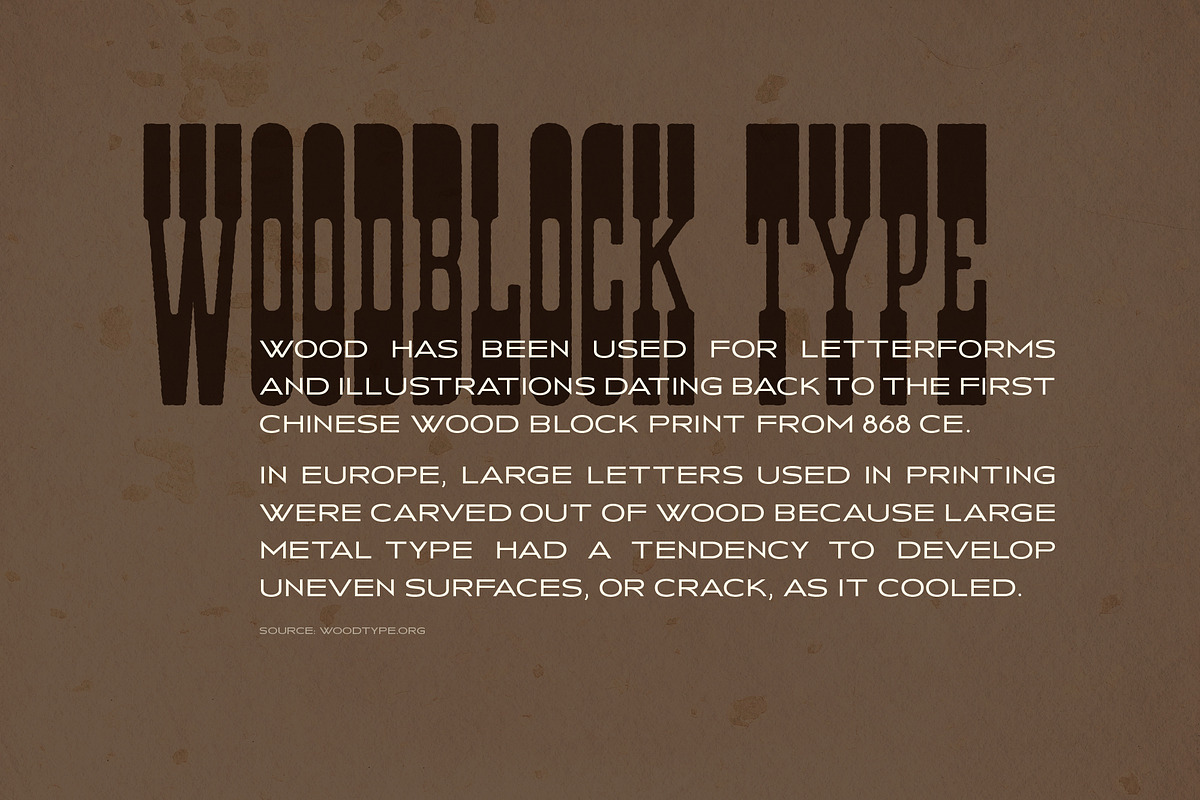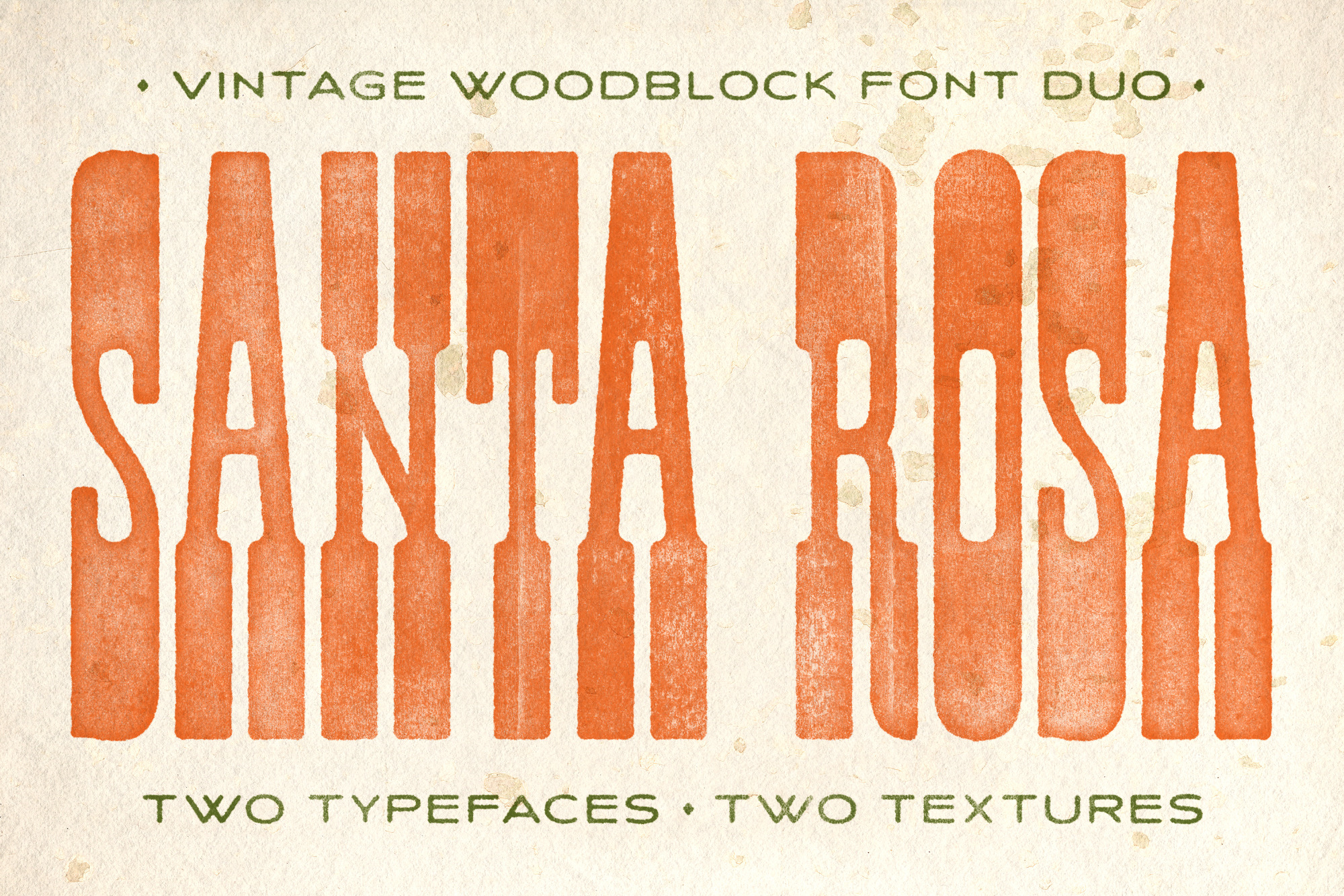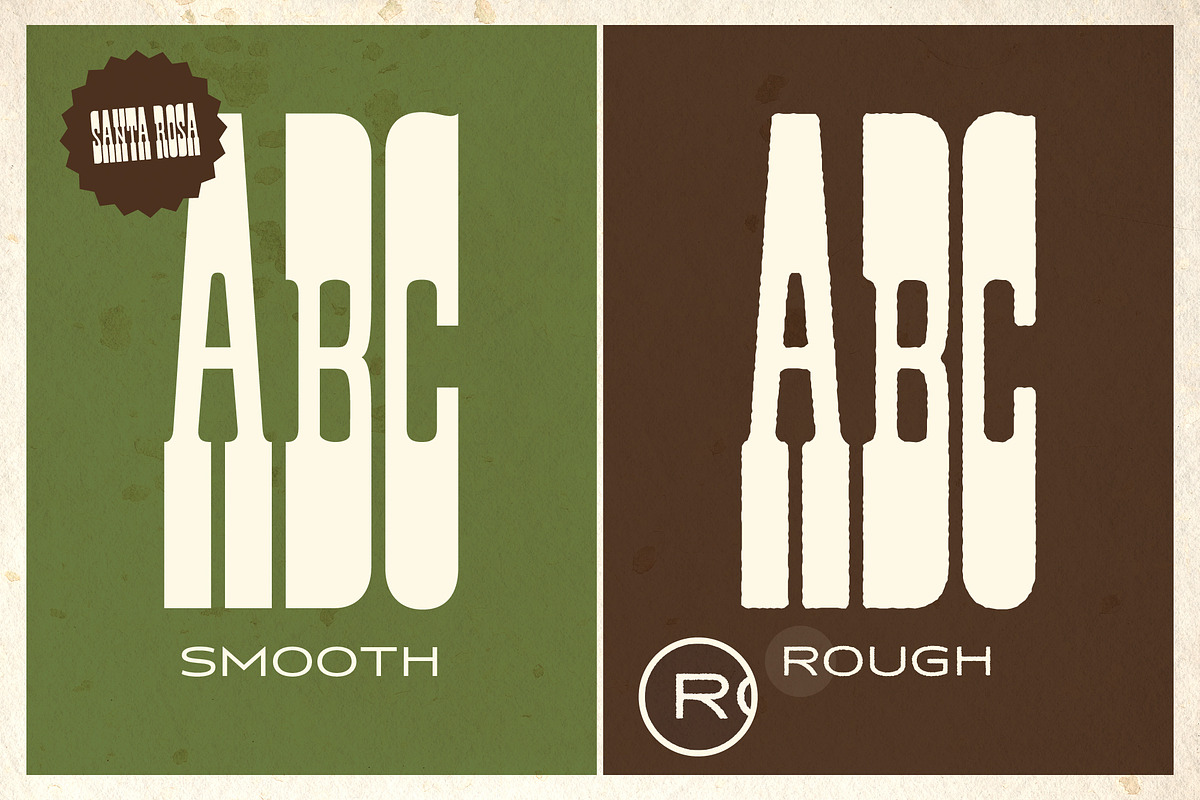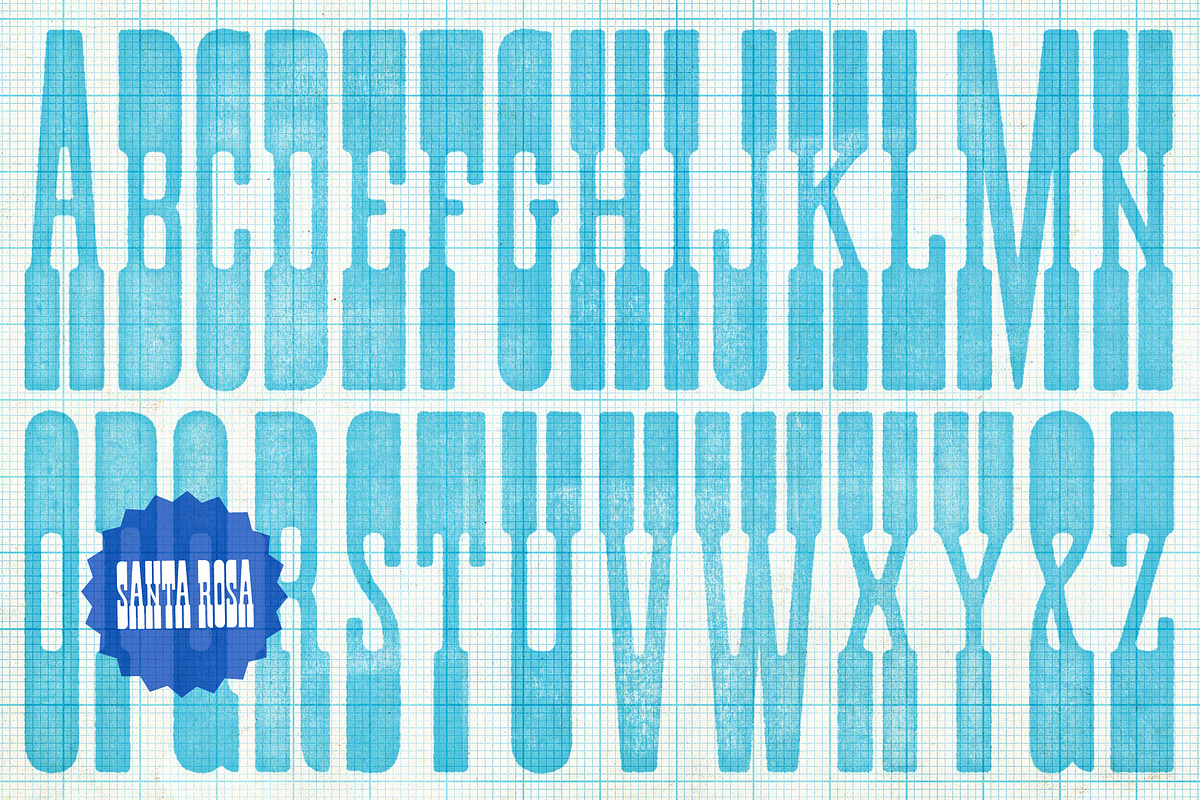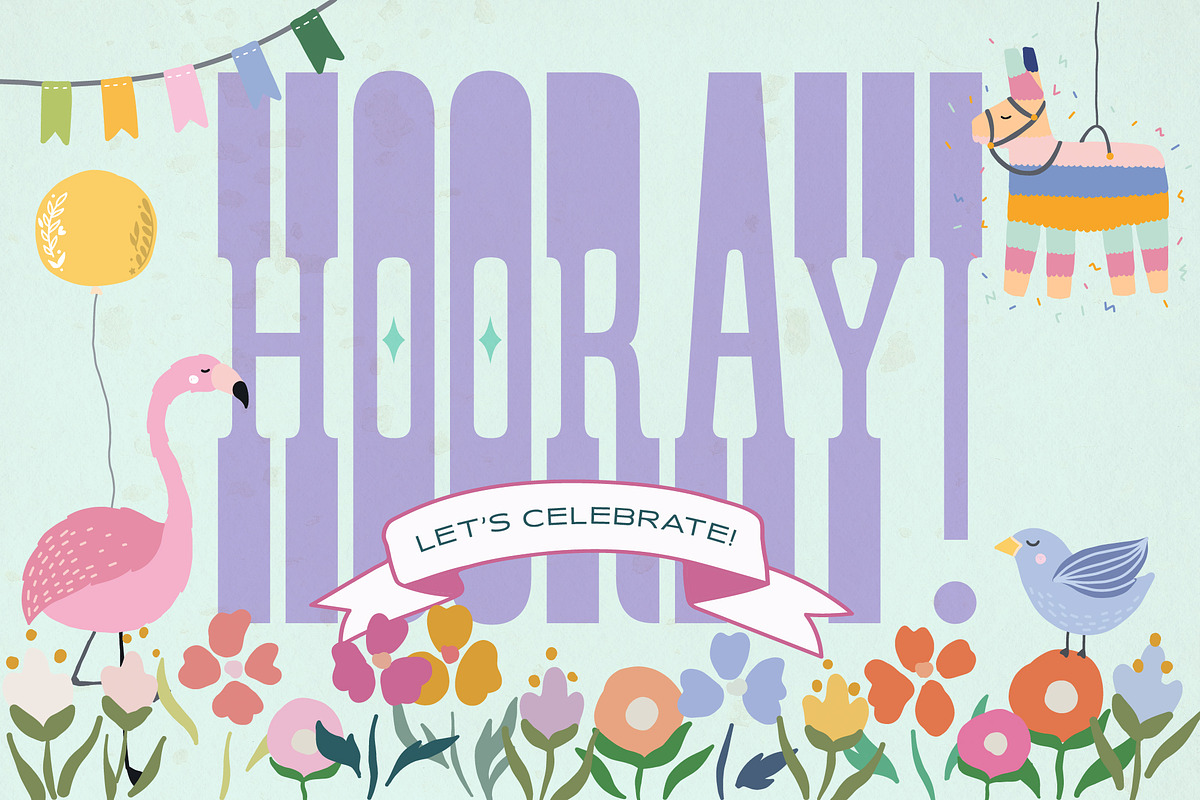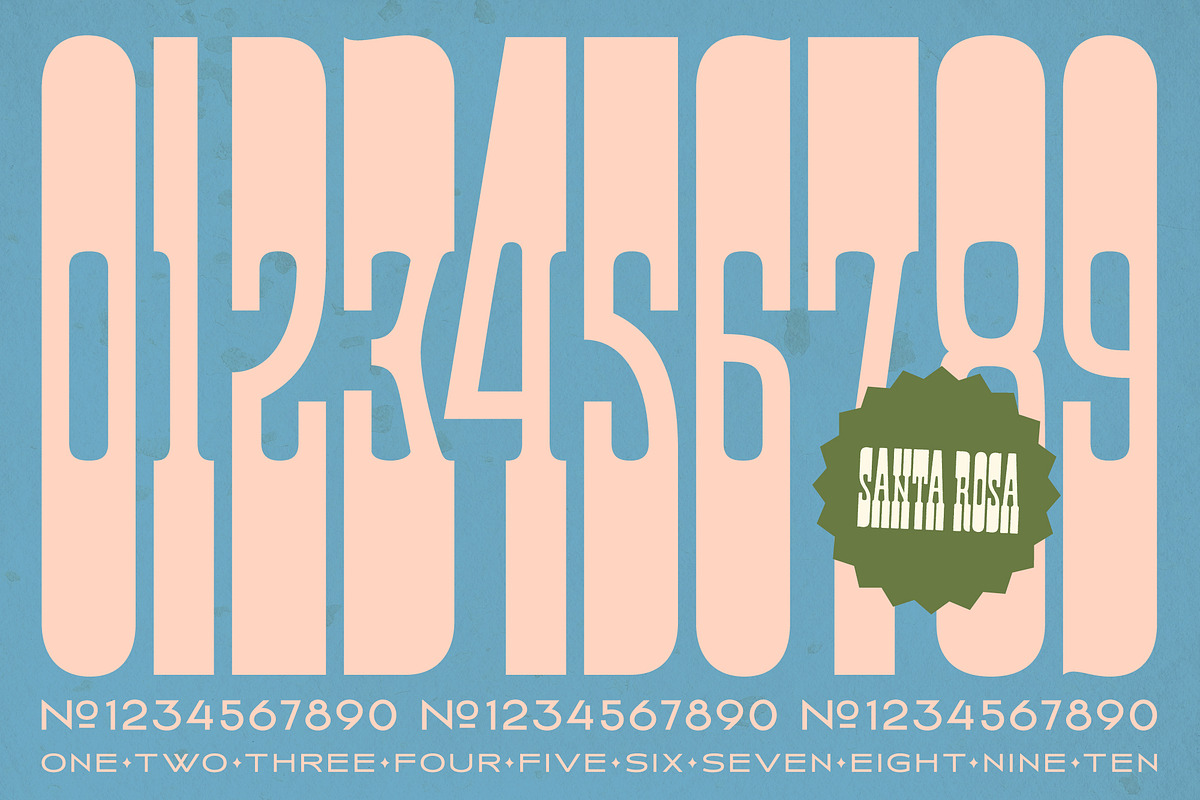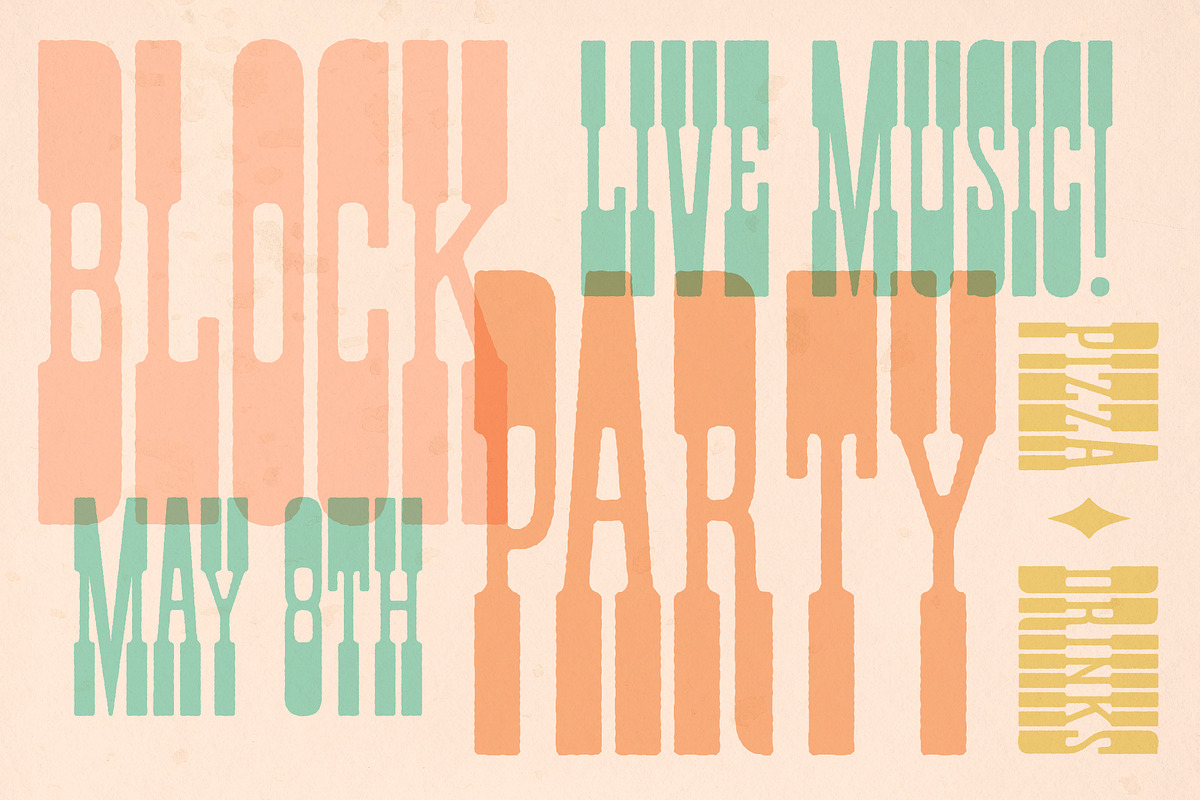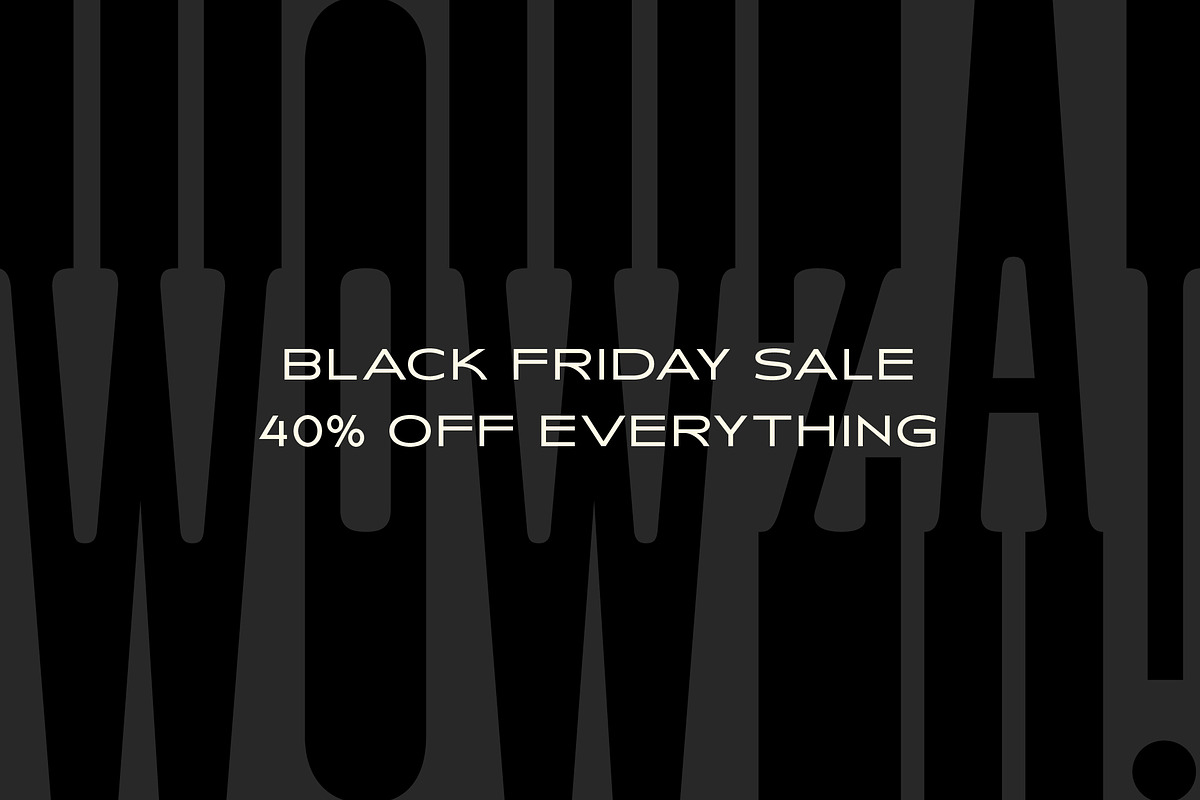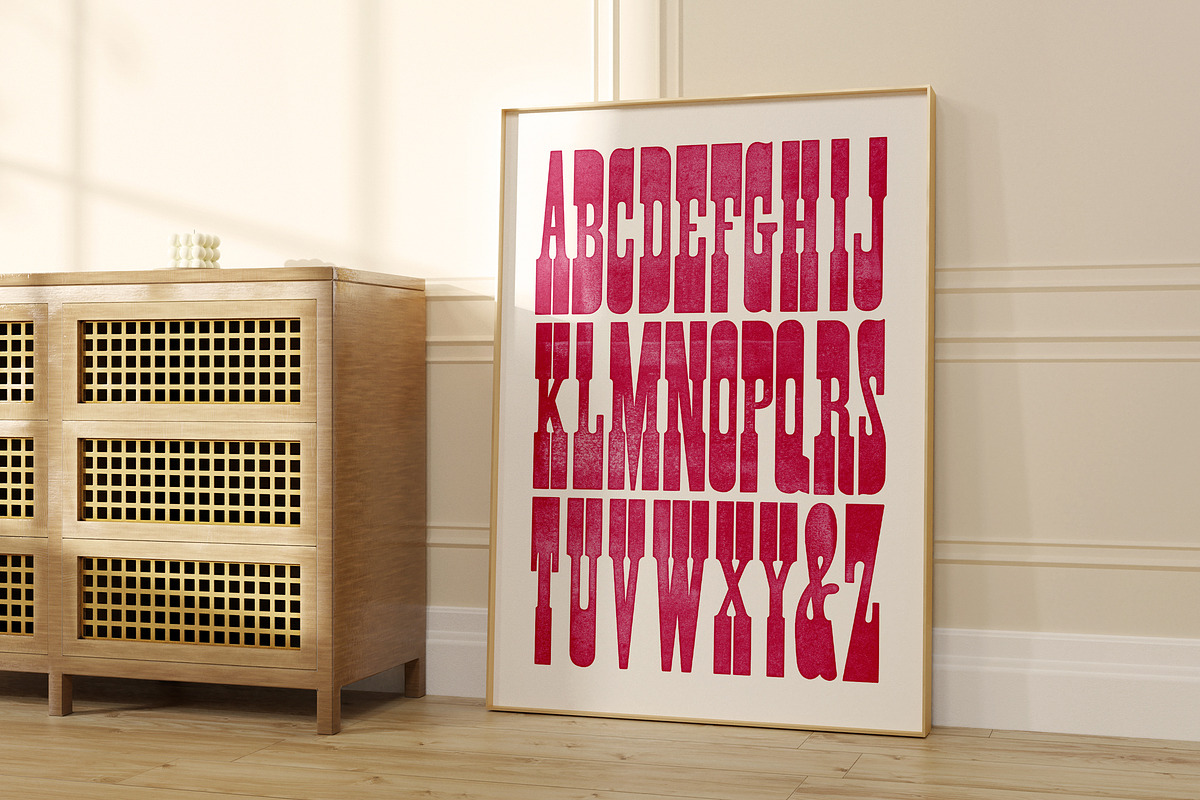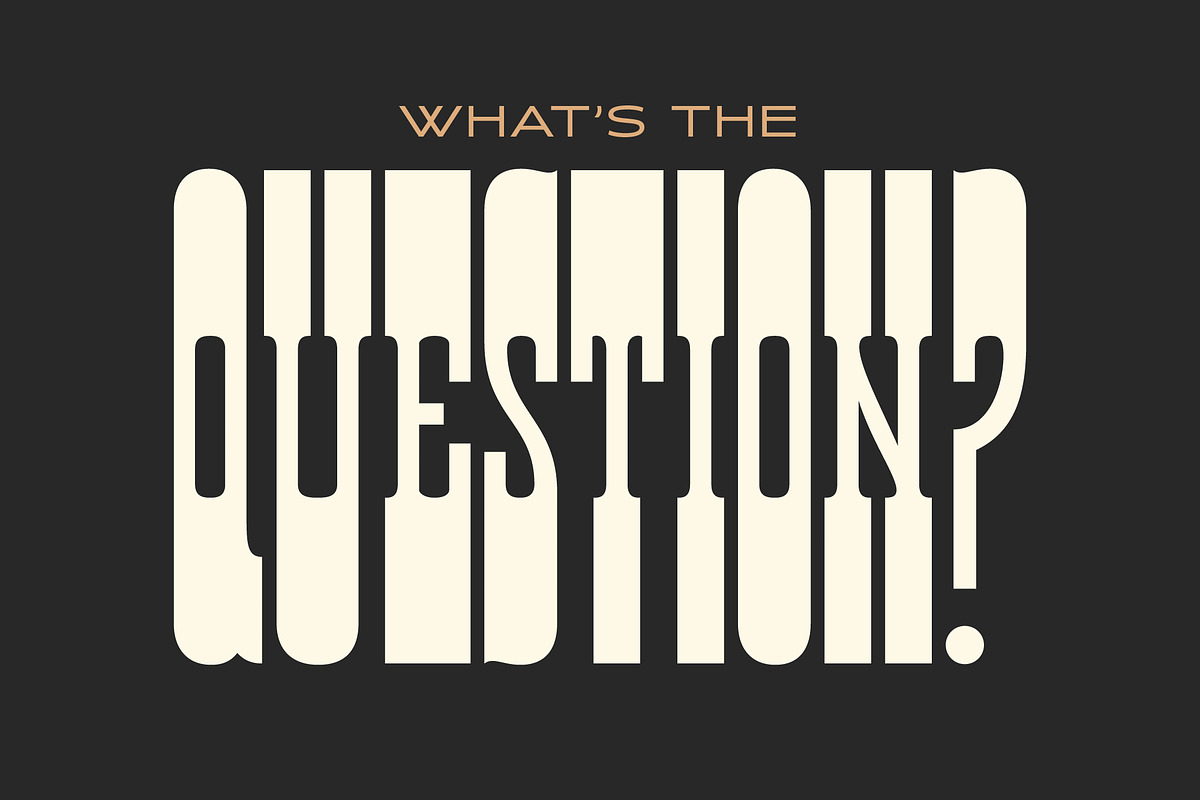
Santa Rosa Vintage Font Duo
Santa Rosa Font Duo is a set of two all-caps typefaces: a vintage woodblock-inspired display face and a wide, complementary sans-serif. Both come in smooth and rough textures, and support dozens of languages, including Greek.
This is a very versatile font pairing, which can be used for retro and modern designs alike. It’s ideal for bold layouts, unexpected advertising, distressed graphics, and more.
Santa Rosa Woodblock (260 glyphs) and Santa Rosa Sans (290 glyphs) are uppercase fonts consisting of:
the complete Latin alphabet (with all accent marks)
the complete Modern Greek alphabet (with all accent marks)
extensive punctuation
numerals
dingbats and arrows
Languages
Santa Rosa Woodblock and Sans support dozens of languages which use the Latin and Greek alphabets. The most common languages they support are: English, Catalan, Croatian, Czech, Danish, Dutch, Finnish, Flemish, French, German, Modern Greek, Italian, Maltese, Norwegian, Polish, Portuguese, Spanish, and Swedish.